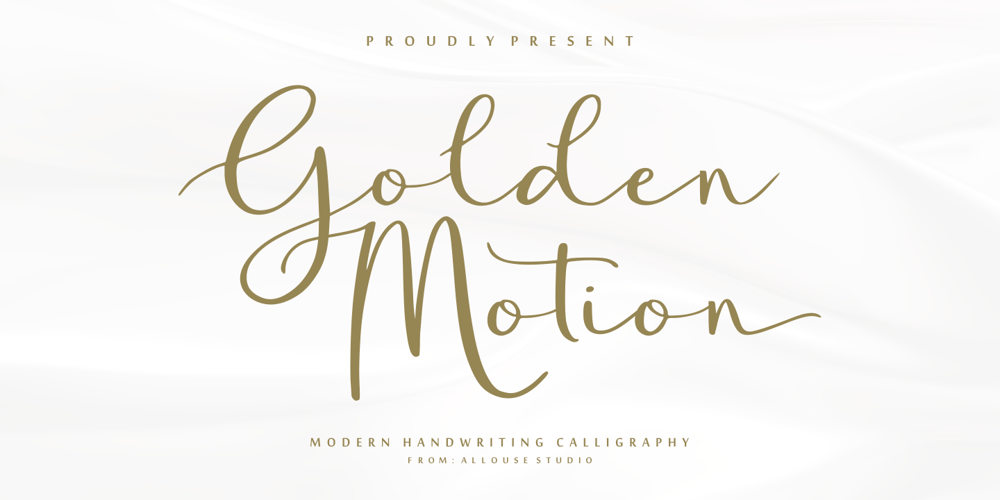
Golden Motion Font Family was designed by Fachrizal Yusuf and published by Allouse Studio. Golden Motion contains 1 styles and family package options. Golden Motion a Modern Handwritting Calligaraphy Font that give you ton extras for your need. Beginning Swash Uppercase, Lowercase, Ending Swash Lowercase, Stylistic ampersand and letter t, stylistic set for b, d, f, h, k, l, g, j, y, z.We highly recommend using a program that supports OpenType features and Glyphs panels like many of Adobe apps and Corel Draw, so you can see and access all Glyph variations. Golden Motion is perfect for any tittles, logo, product packaging, branding project, megazine, social media, wedding, or just used to express words above the background.Golden Motion also come with Multi-Lingual Support.